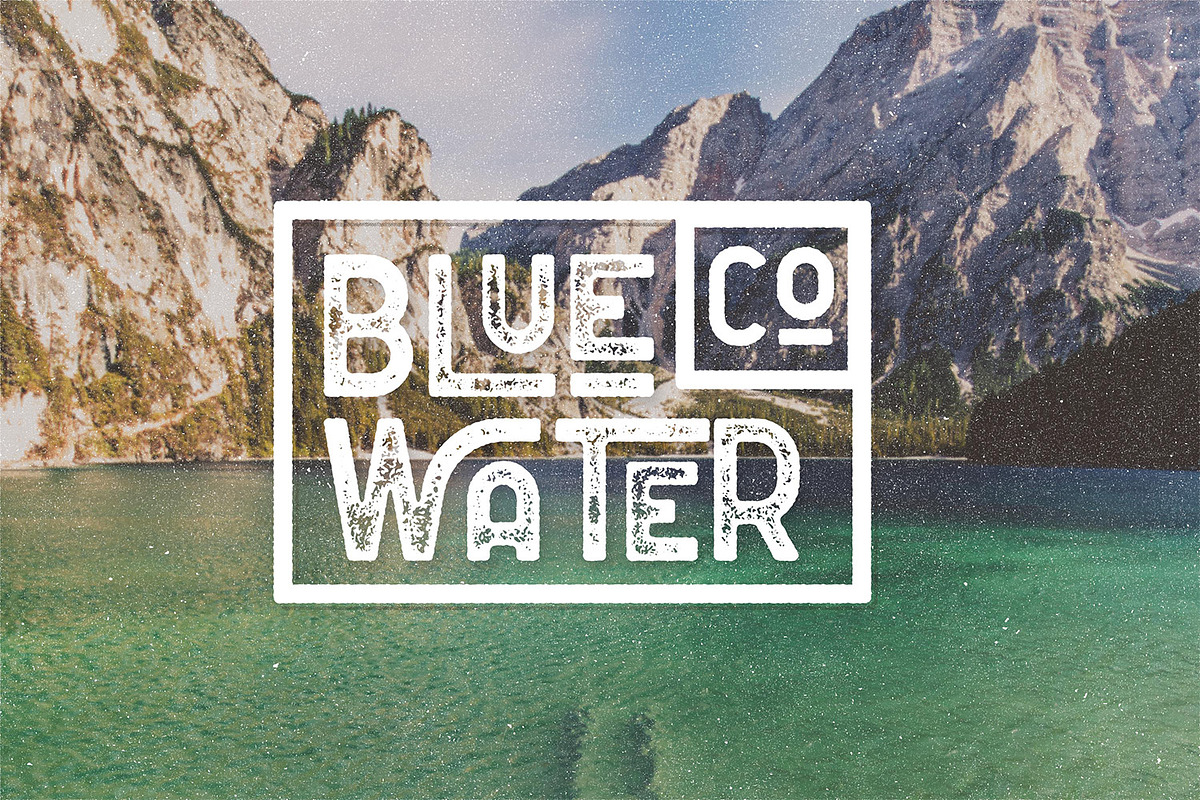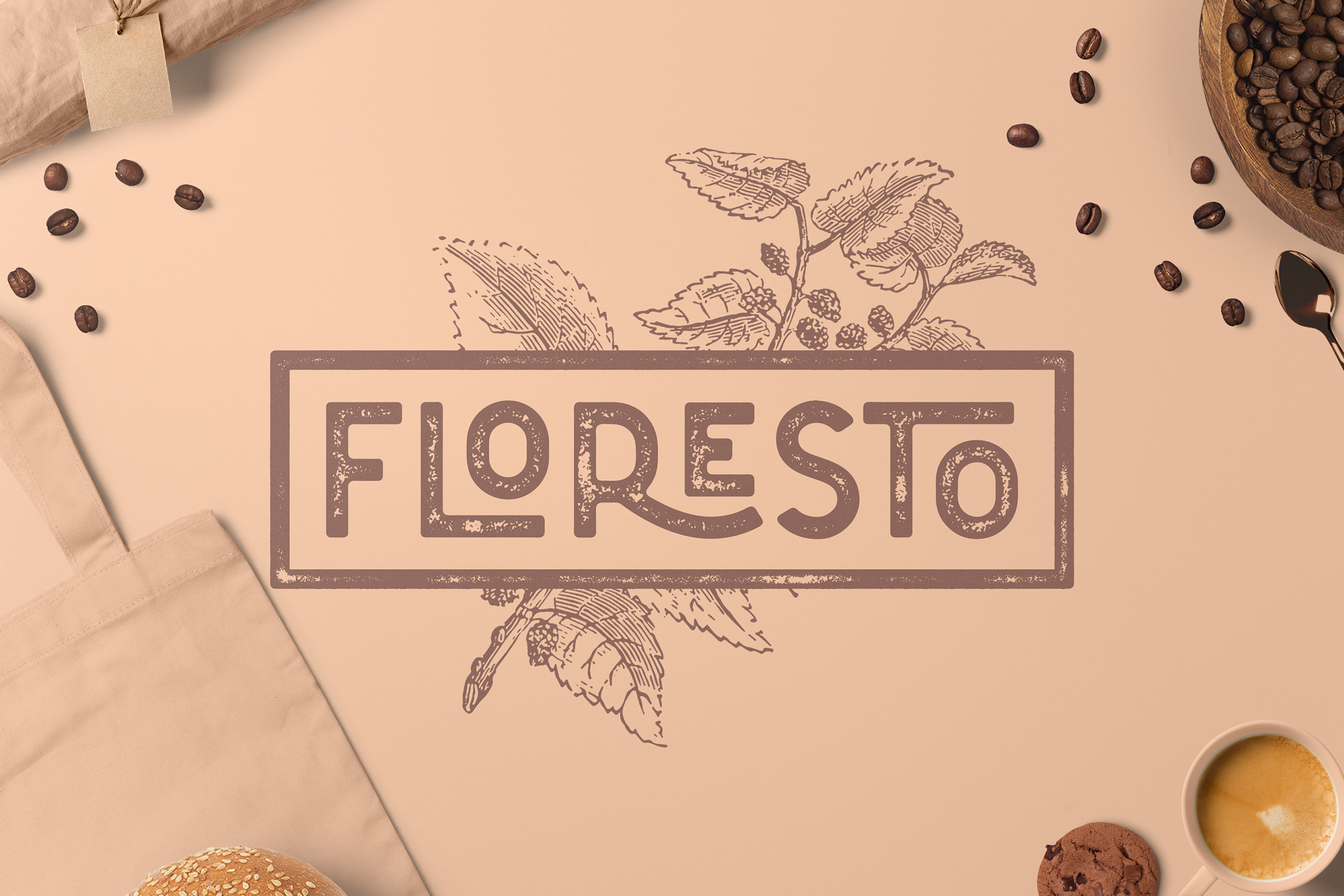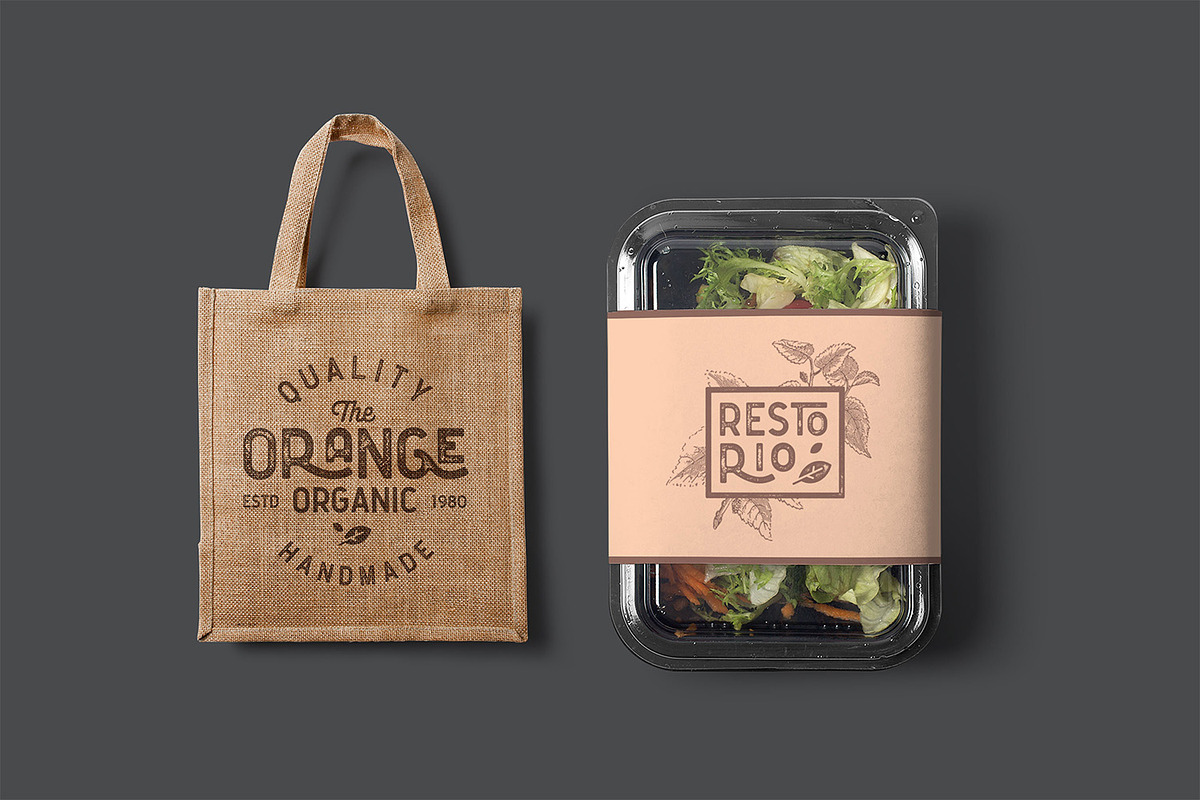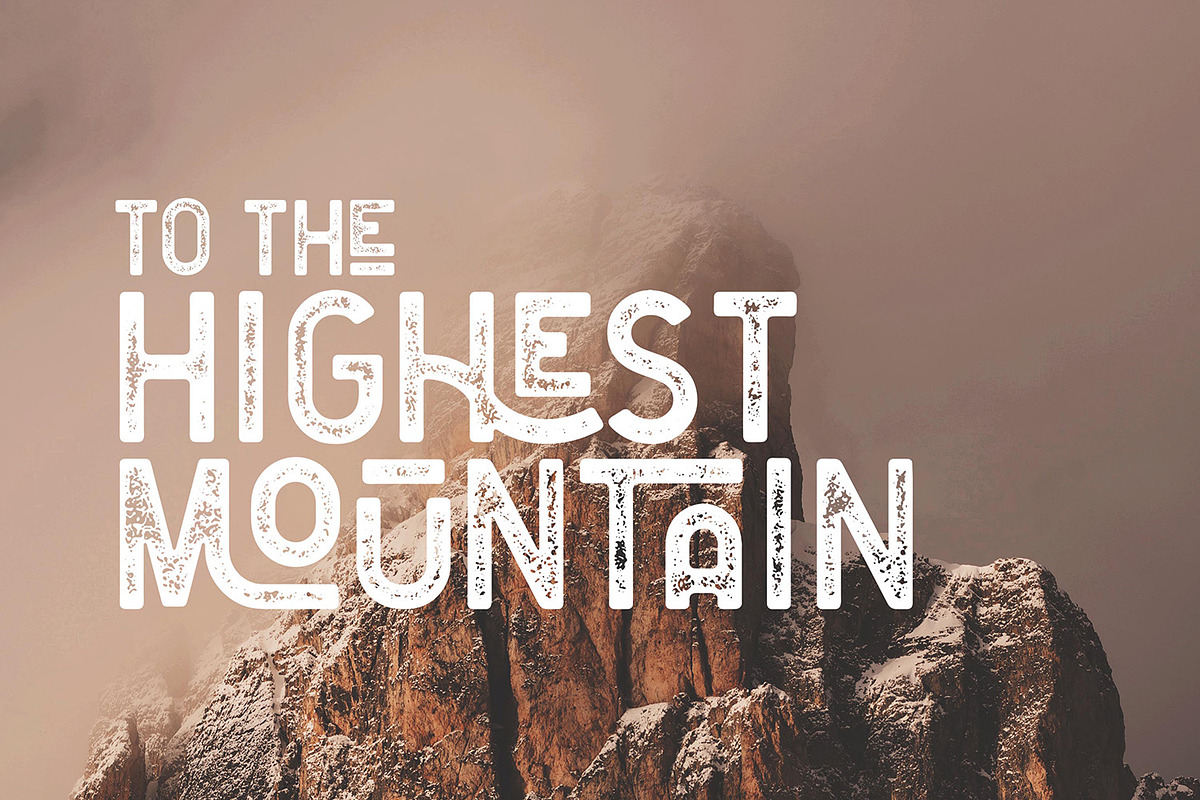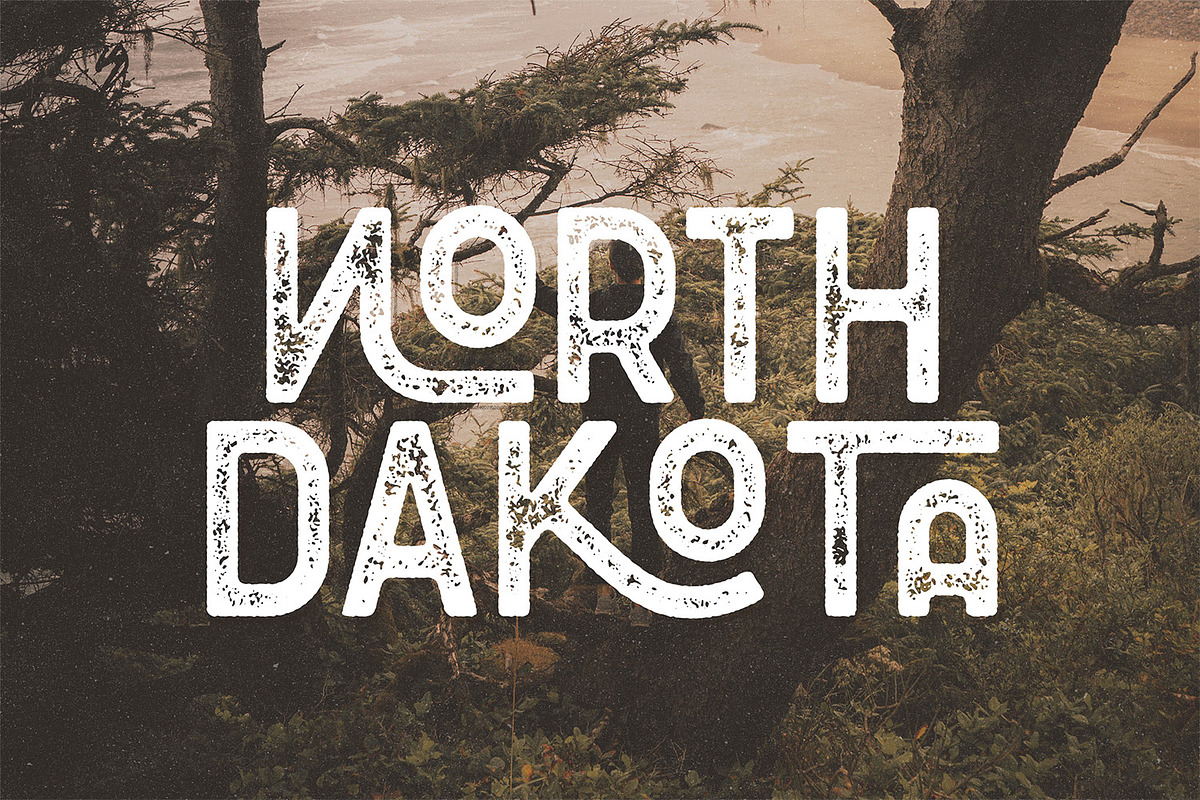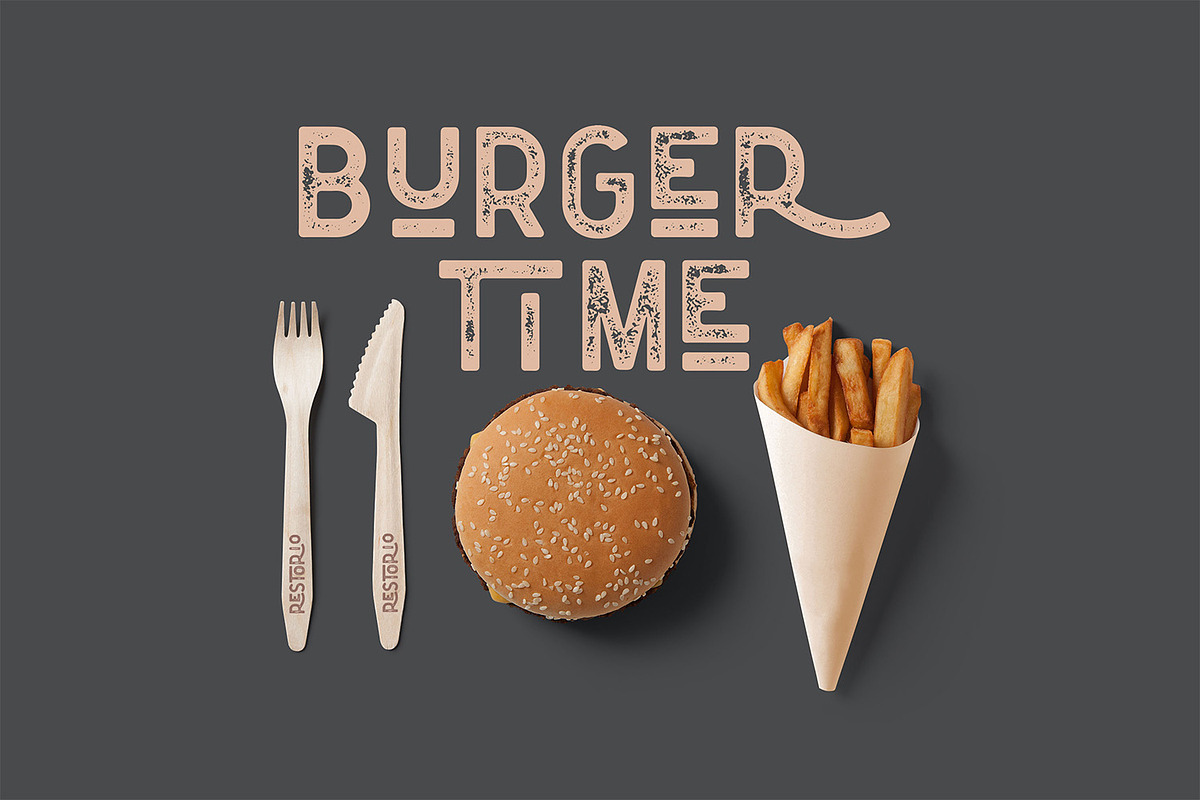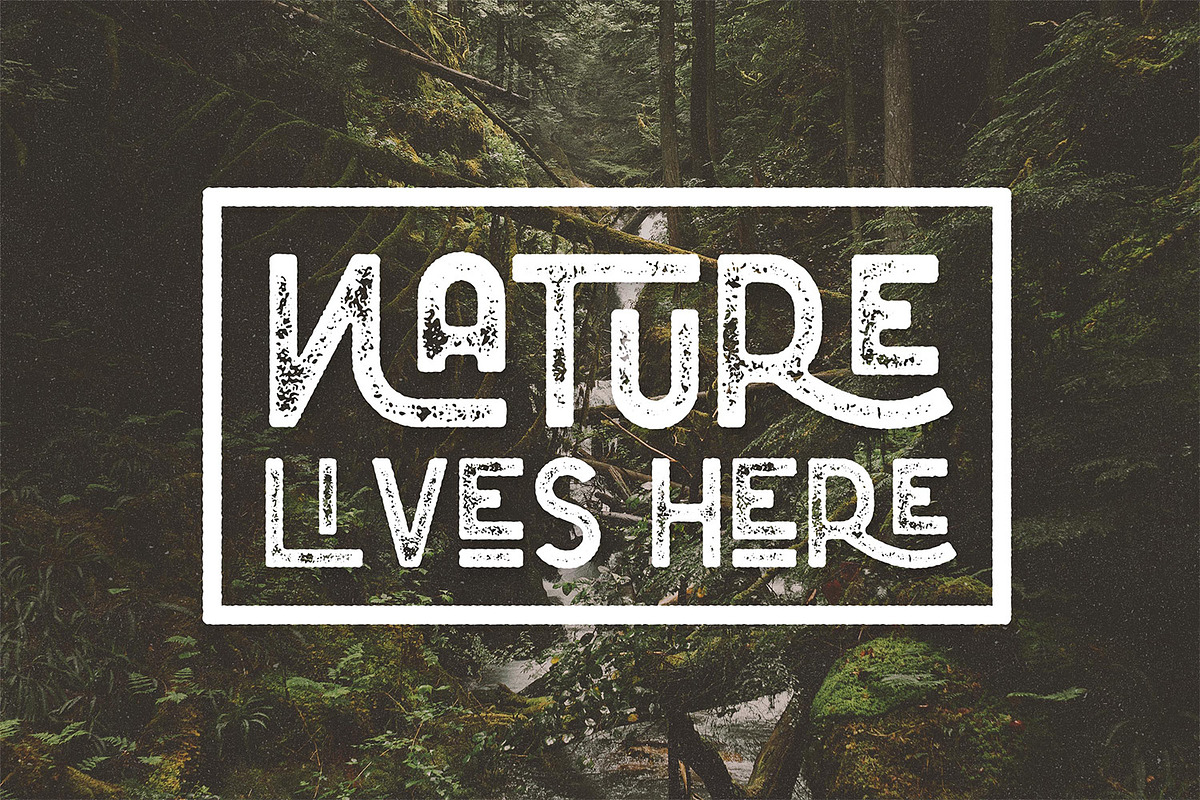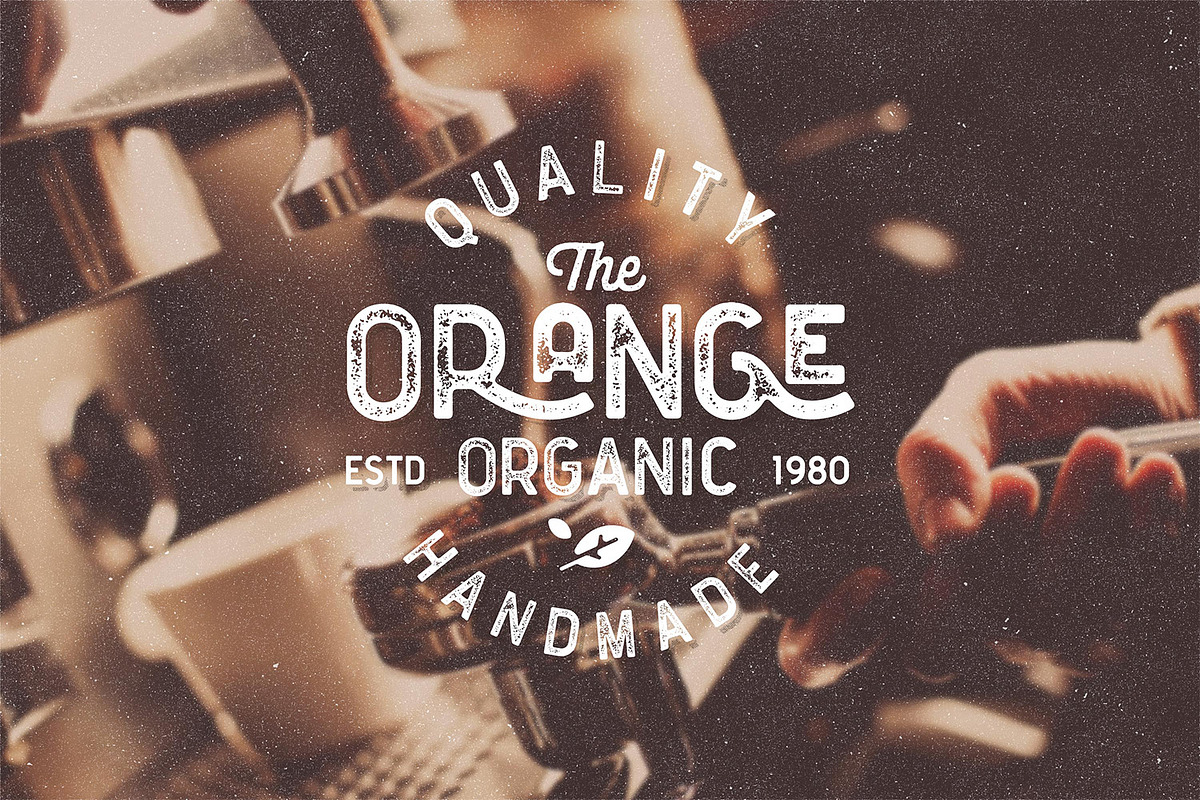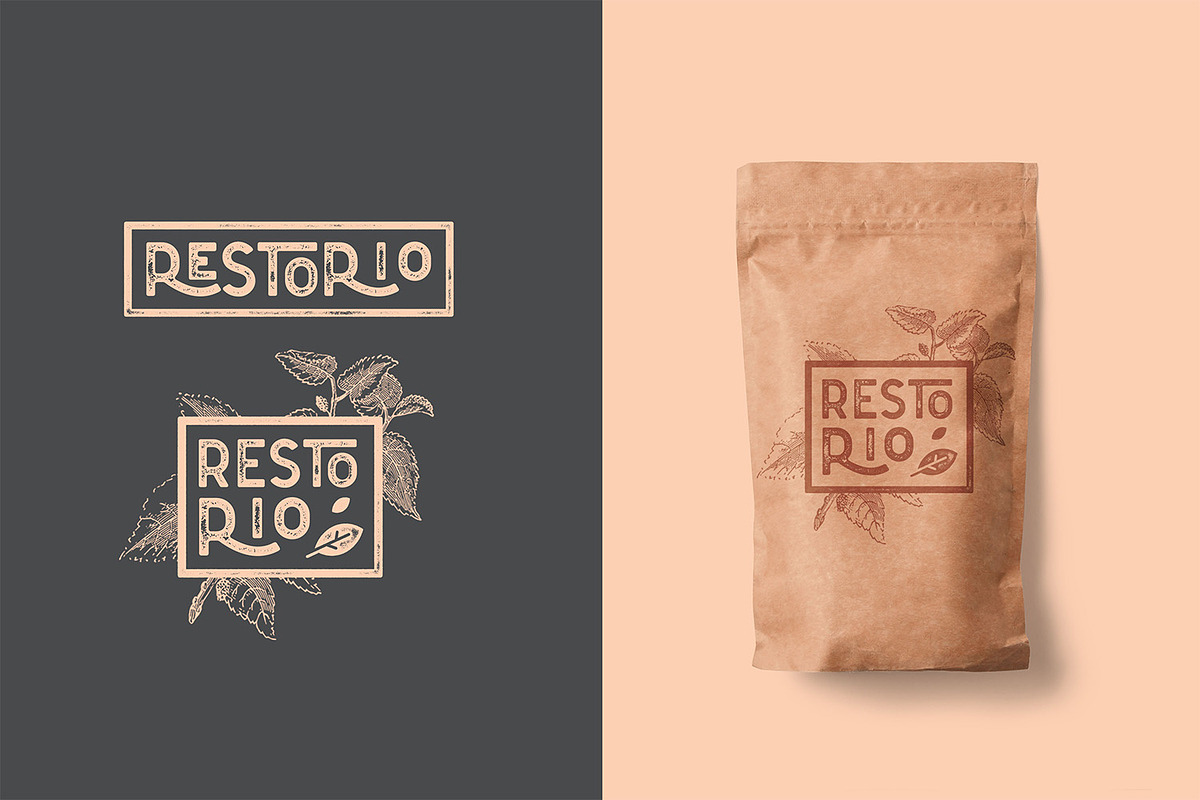
Floresto Textured Typeface
The Floresto Textured is a Modern vintage sans serif font, with Roughed edges and touch of many beautiful alternate characters make this font look Elegant & stylist. It contains an uppercase alphabet with numbers and symbols. Designed with Stylistic Alternates and Contextual Alternate in some characters that allows you to mix and match pairs of letters to fit your design. Perfect for many different projects: logo, fashion, quotes, blog header, poster, wedding, branding, apparel, letter, invitation, stationery, etc
Thre Styles : Rough & Textured, Textured2
Character set A-Z with special uppercase letters